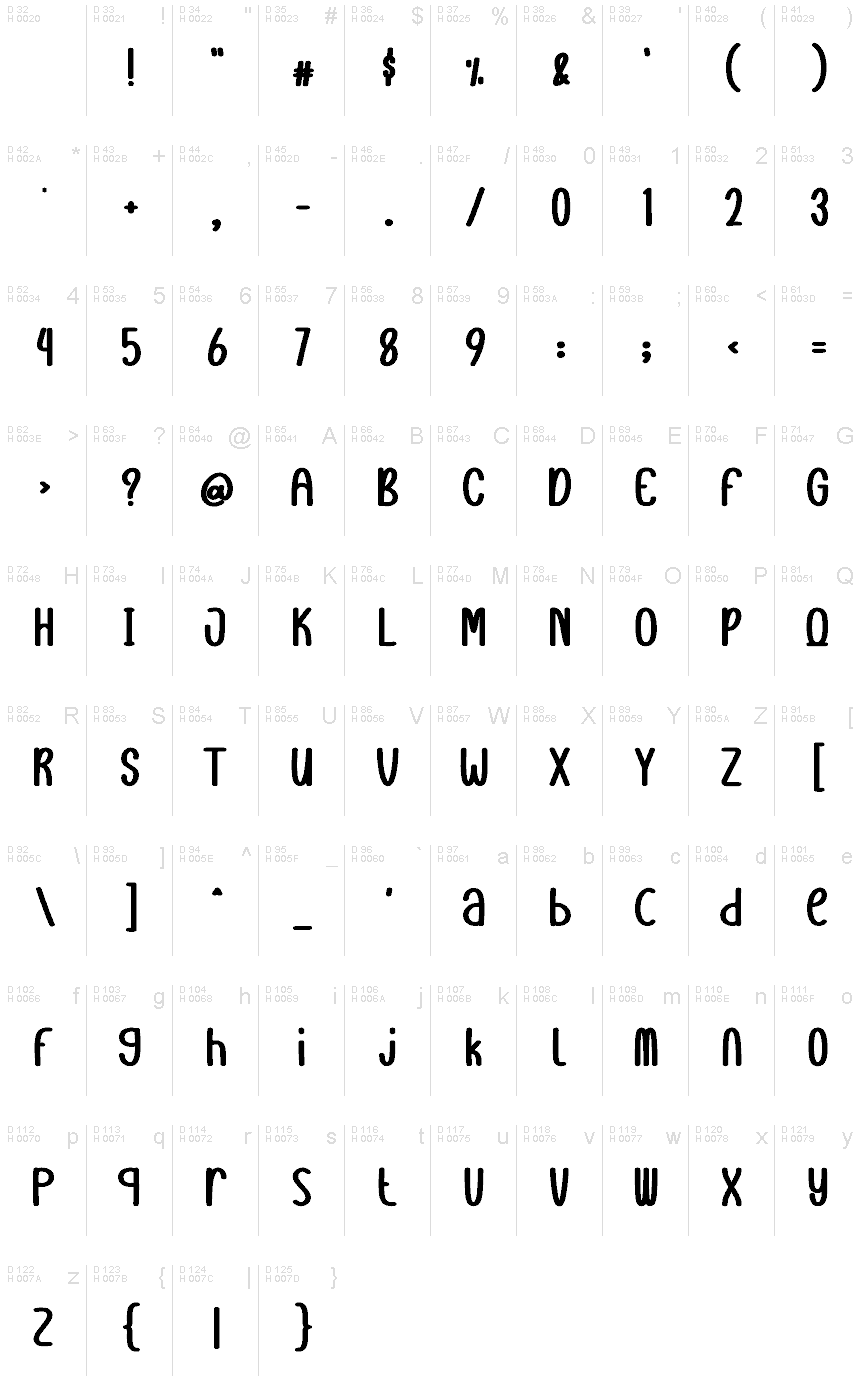
Green Leaf
Green Leaf font by Andi Moz is a free handwritten font with a condensed width perfect for contemporary, youthful designs. Its rounded, organic character gives it a friendly and approachable look that’s both modern and whimsical. The earthy tone that this typeface radiates makes it a natural choice for casual projects with playful vibes.
Let your posters, blogs, slideshows, book covers look their best at first sight. Style an Instagram post that gets the attention you deserve or use this font in packing various products. Payments slips will never look boring when Green Leaf is selected as the main payment method typeface!